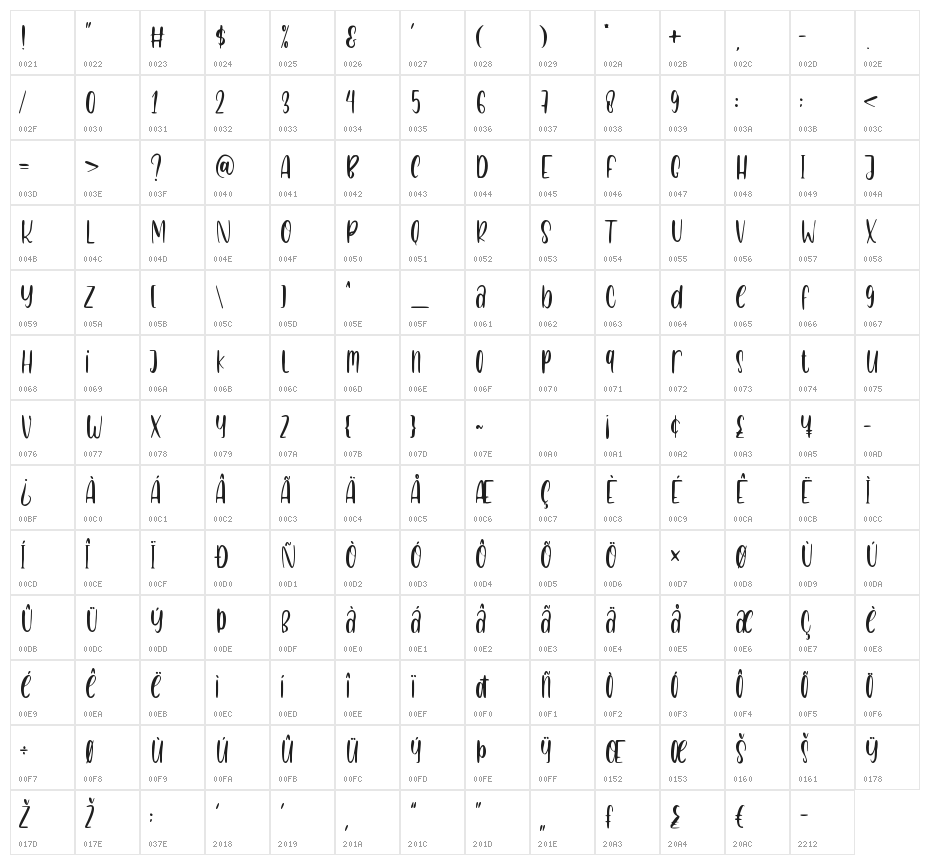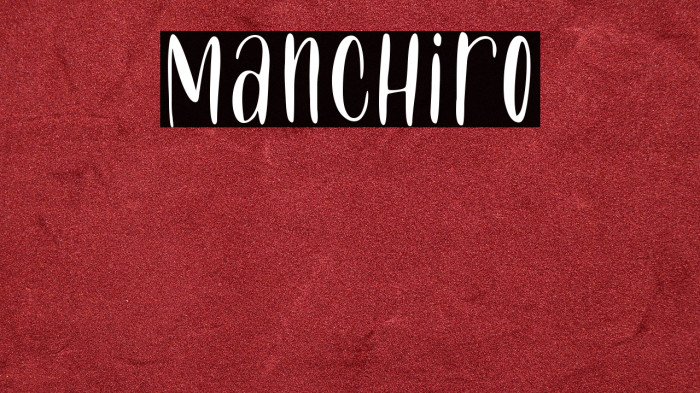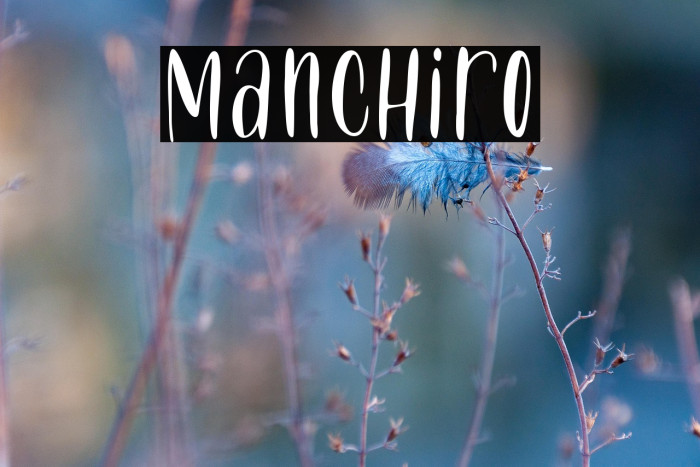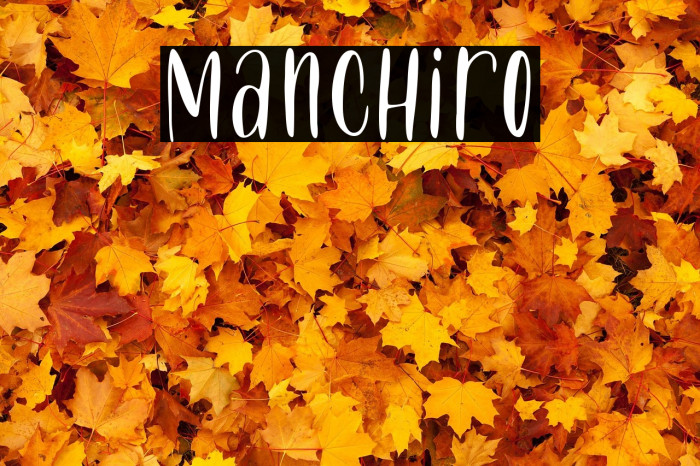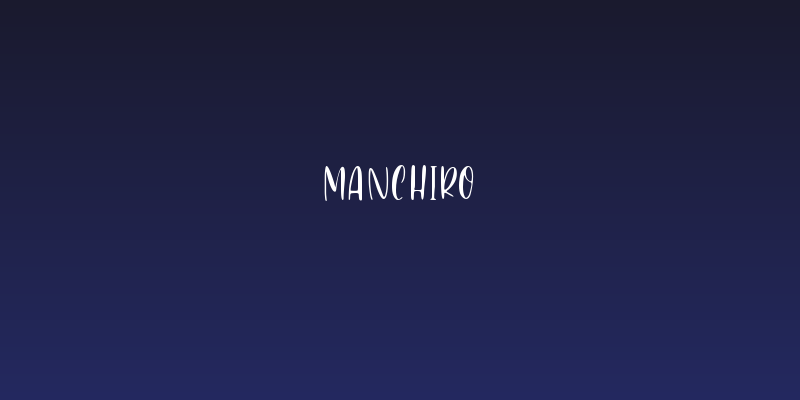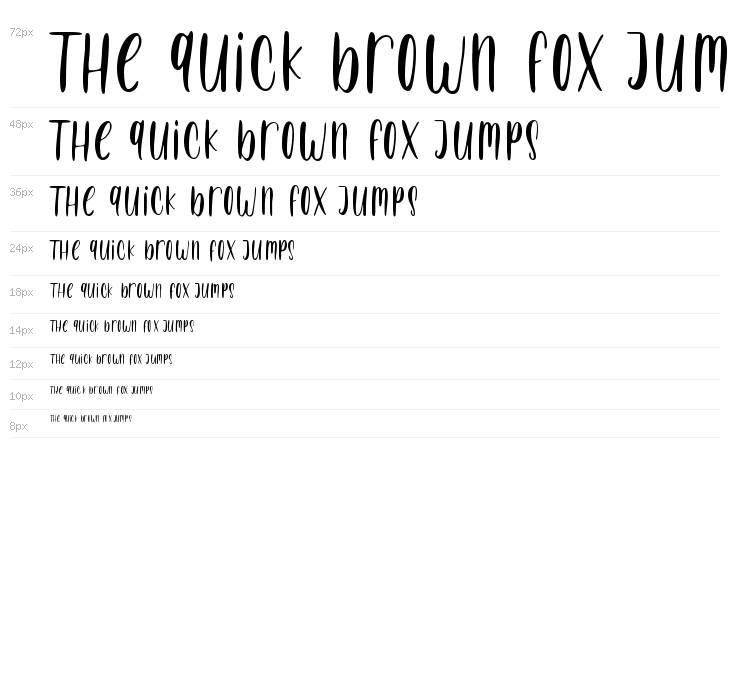
Manchiro Font
Manchiro Description
This font features a playful and artistic style, characterized by its bold and flowing strokes. The letters have a hand-drawn appearance, with varying thickness that adds a dynamic and lively feel. The uppercase letters are tall and slightly narrow, while the lowercase letters maintain a consistent height, creating a harmonious balance. The numbers and special characters follow the same whimsical design, making the font suitable for creative and informal projects. Its unique style stands out, making it ideal for eye-catching designs.
| Use Case | Logos, Headlines, Posters |
| Proposed Projects | Ideal for greeting cards, posters, children's books, and creative branding projects. |